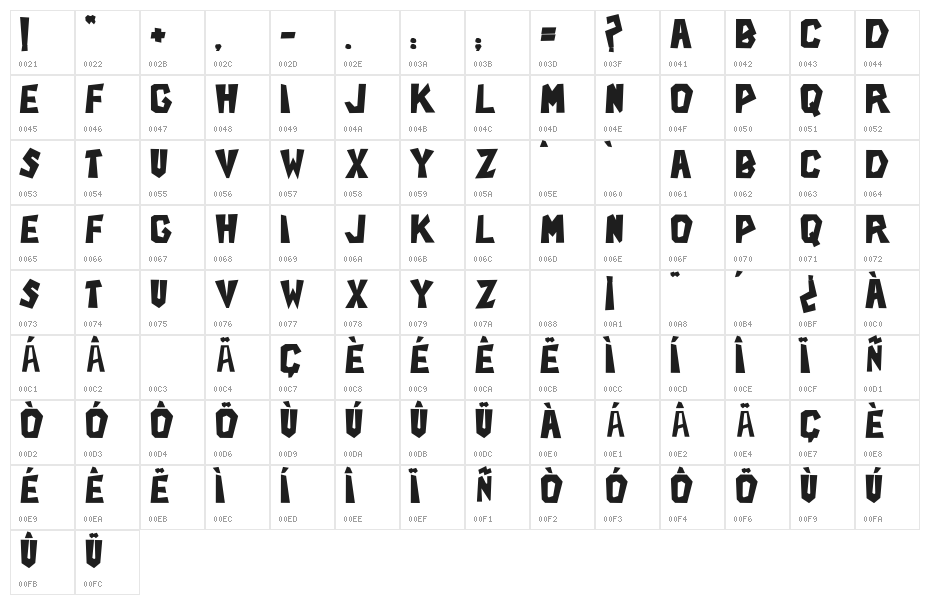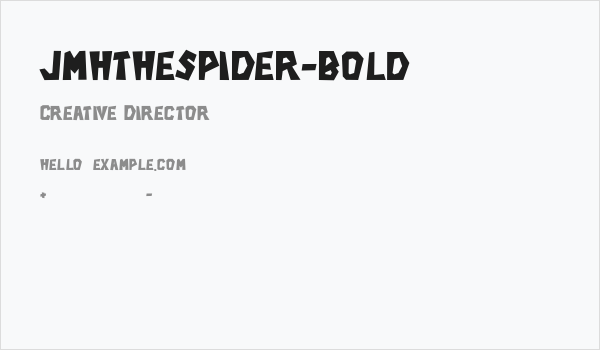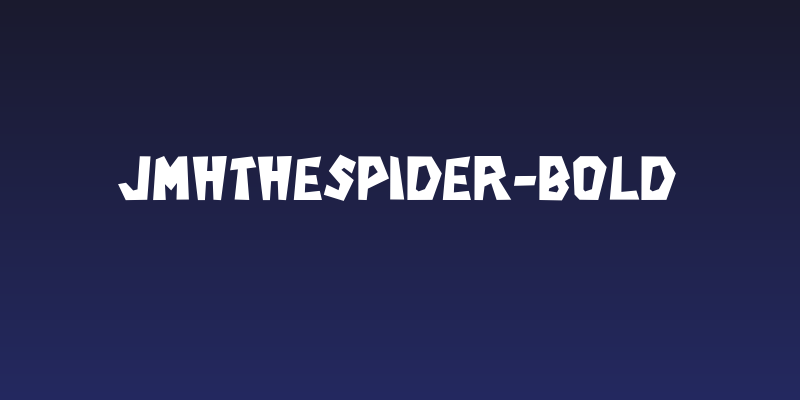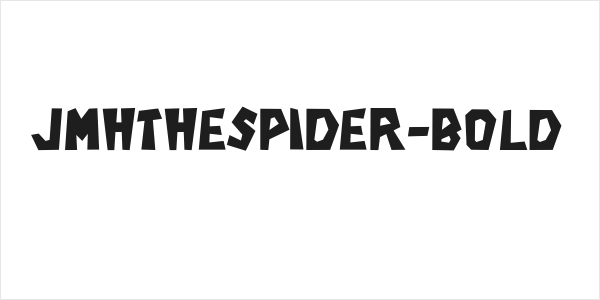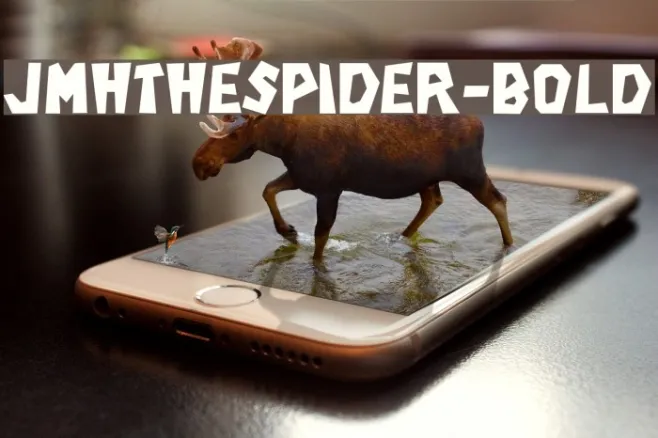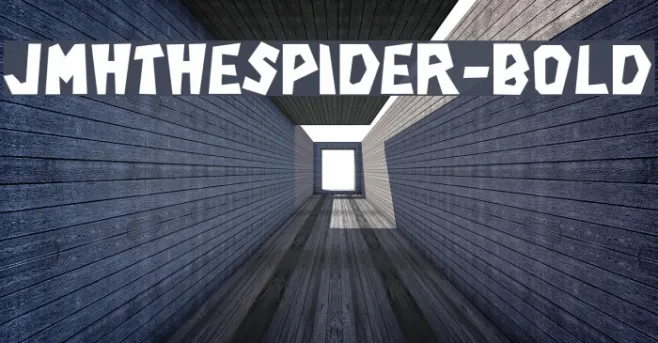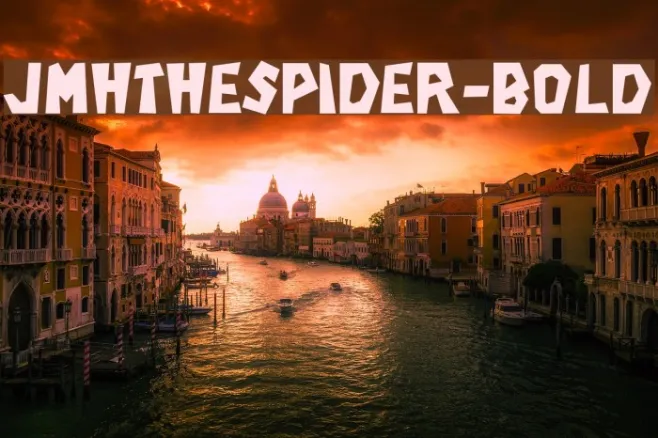
JMHTHESPIDER-Bold Font
JMHTHESPIDER-Bold Description
This font features a bold and angular design, characterized by sharp edges and a geometric style. The uppercase letters are distinct with a blocky appearance, giving off a strong and impactful visual presence. The font lacks lowercase letters, focusing solely on uppercase characters, which enhances its boldness. The numbers and special characters maintain the same angular and edgy style, ensuring consistency throughout. This font is ideal for projects that require a striking and modern look, such as posters, logos, and headlines. Its unique style makes it stand out, capturing attention with its unconventional and artistic flair.
| Proposed Projects | Ideal for posters, logos, headlines, and any project needing a striking, modern look. |